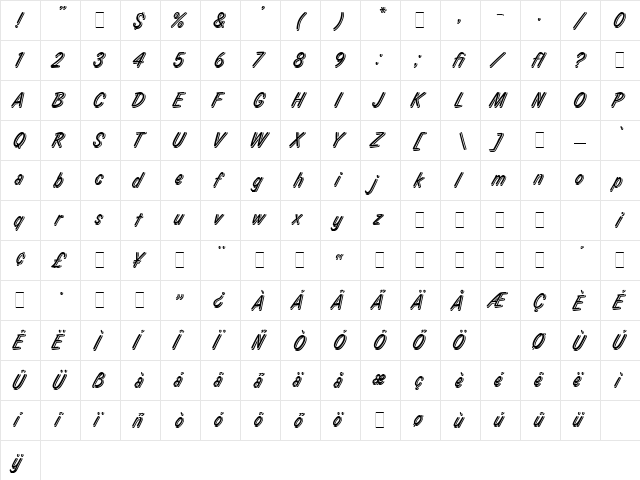
Laura LET Plain
Design Context for Laura LET Typeface
Laura LET takes a measured approach to typography — its balanced proportions and neutral character make it a reliable workhorse for both digital and print work.